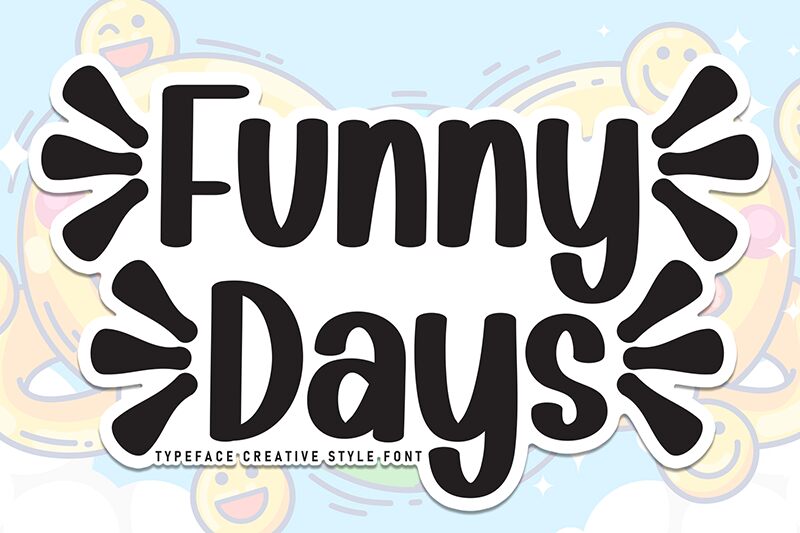
Funny Days
Funny Days font by Scratchones is a friendly and rounded font perfect for adding a personal touch to your projects. This handwritten typeface has smooth transitions that convey a casual vibe, making it welcoming and carefree. It uses straight, mostly parallell strokes with round endings for its letters that overall generate the contemporary feel that makes this font unique.
This free handwritten font can be used in publishing projects including novels, books, magazines, and children’s books. It would also look great in packaging design jobs where the product is food-related or another FMCG product for an average consumer.